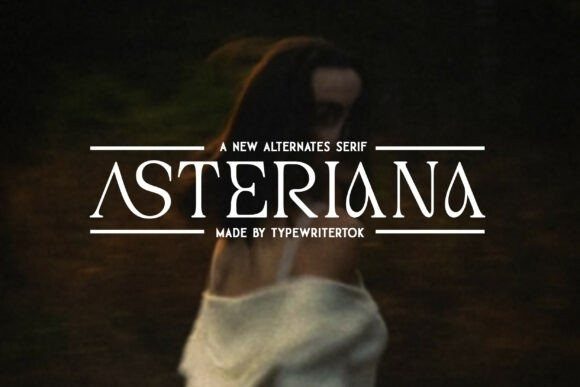
Asteriana Font
Asteriana Font is an elegant serif font featuring beautiful alternates that add a touch of sophistication to any design. Its refined details and versatile style make it perfect for luxury branding, editorial design, wedding invitations, packaging, logos, and high-end fashion projects. With Asteriana, you can create stunning typography that exudes elegance and charm.